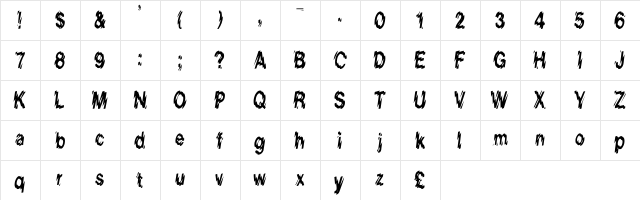
LowerWestSide Cn Regular
LowerWestSide Cn is a composed and adaptable typeface that performs quietly and consistently across a wide range of design contexts.